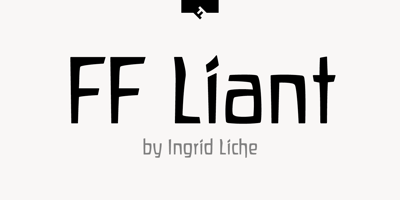
FF Liant
FF Liant font
FF Liant Font Family was designed by Ingrid Liche and published by FontFont. FF Liant contains 3 styles and family package options. German type designer Ingrid Liche created this display FontFont in 1995. The family contains 3 weights: Regular, Medium, and Bold and is ideally suited for advertising and packaging, logo, branding and creative industries as well as poster and billboards. FF Liant provides advanced typographical support with features such as ligatures and case-sensitive forms. It comes with proportional lining figures.